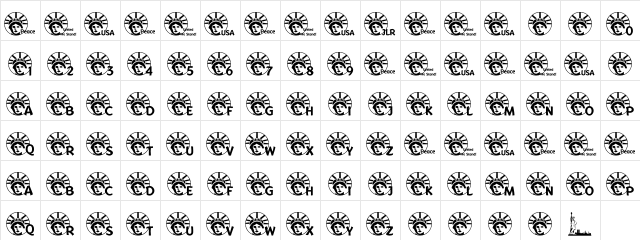
JLR Lady Liberty LSF Regular Free Font
JLR Lady Liberty LSF Regular
Design Context for JLR Lady Liberty LSF
JLR Lady Liberty LSF is a composed and adaptable typeface that performs quietly and consistently across a wide range of design contexts.